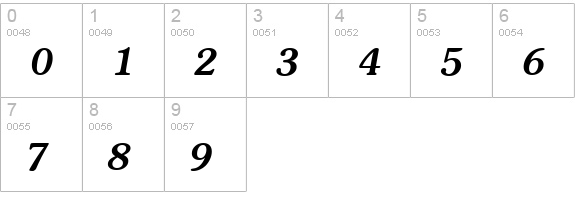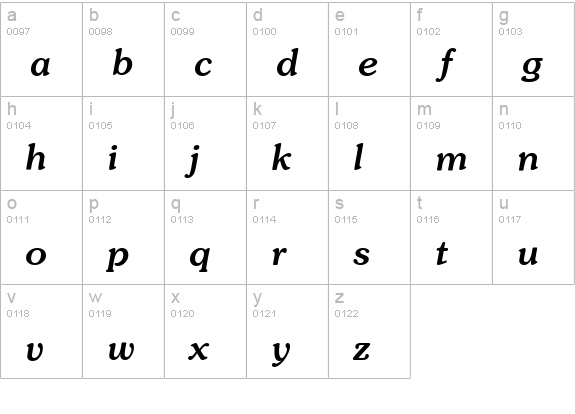
Sunset-Italic is a distinctive, italic variant in the Sunset typeface family \xE2\x80\x94 well suited to design and typography projects.
Sunset-Italic font is a beautifully crafted typeface that exudes elegance and sophistication. Its sleek and flowing italic design adds a touch of charm to any project, making it perfect for luxury branding, wedding invitations, and editorial design. The graceful curves and unique letterforms of Sunset-Italic make it a standout choice for those looking to add a touch of class to their designs. The best part? Sunset-Italic is available for free download at FontsMarket.com. This means you can elevate your projects with this stunning font without having to spend a penny. Don't miss out on the opportunity to enhance your designs with the timeless beauty of Sunset-Italic. Download it today and add a touch of sophistication to your work!